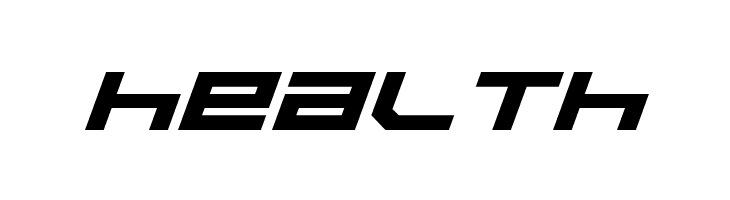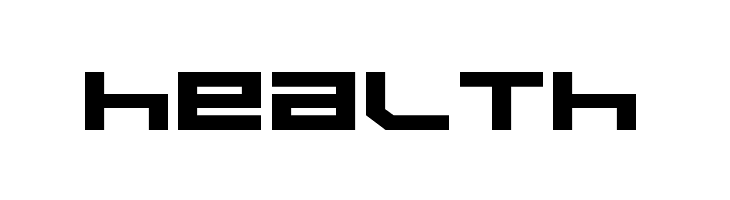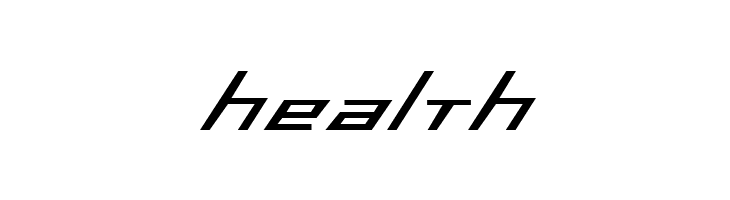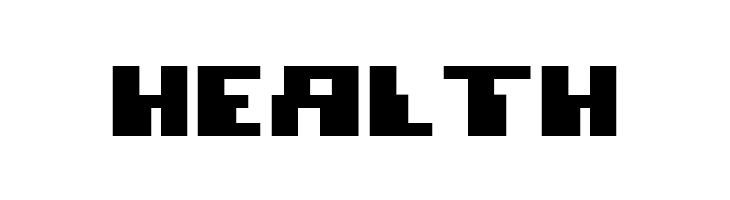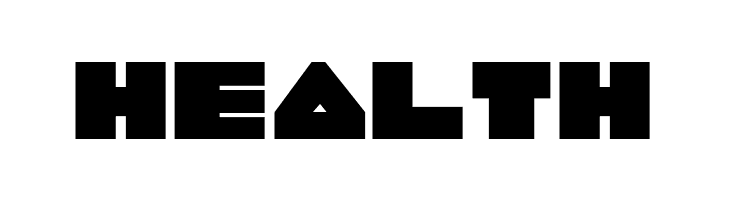
A bold, angular, and futuristic font with expanded and italicized characters.
A bold, futuristic font with angular, geometric letterforms and an expanded width.
A bold, italicized, and expanded font with a futuristic and angular design.
A modern, geometric font with bold, expanded characters and a futuristic aesthetic.
A bold, italicized, and expanded typeface with a modern and dynamic style.
A modern, expanded italic font with a sleek and dynamic style.
A bold, expanded font with a modern, geometric style.
A bold, expanded, and italicized futuristic font with geometric shapes.
A bold, geometric font with a futuristic and expanded style.
A bold, expanded, and italicized font with a modern and dynamic style.
A bold, expanded font with geometric shapes and sharp angles, perfect for impactful headlines.
A bold, expanded font with a modern, industrial style.
A bold, 3D, expanded, and italicized font with a futuristic look.
A bold, expanded, and italic font with a futuristic and dynamic style.
A bold, expanded, and italicized font with a modern, dynamic style.
A bold, italicized font with an expanded width and modern, angular design.
A bold, expanded italic font with a modern and dynamic style.
A bold, expanded font with a strong, geometric design ideal for impactful headlines.
A bold, expanded, and italicized font with a modern and dynamic style.
A bold, geometric font with a modern, futuristic style and expanded width.
A bold, expanded font with strong geometric shapes and wide letterforms.
A bold, expanded italic font with a modern and dynamic style.
A bold, expanded, and italic font with a modern and dynamic style.
A modern, expanded italic font with geometric and dynamic letterforms.
A bold, expanded, and italicized font with sharp angles and high contrast.
A bold, expanded italic font with sharp angles and a modern, dynamic style.
A modern, ultra-expanded font with a geometric and clean design.
A futuristic, geometric font with expanded and italicized characters.
A bold, distressed font with an expanded width and rugged style.
A bold, expanded, and italic font with a rugged, dynamic style.
A bold, expanded italic font with a modern, angular design.
A bold, italic, and distressed font with an expanded width and dynamic style.
A bold, distressed, and italic font with an expanded width for dynamic designs.
A bold, distressed font with a grunge aesthetic and expanded width.
A bold, expanded, and italicized font with a playful and friendly style.